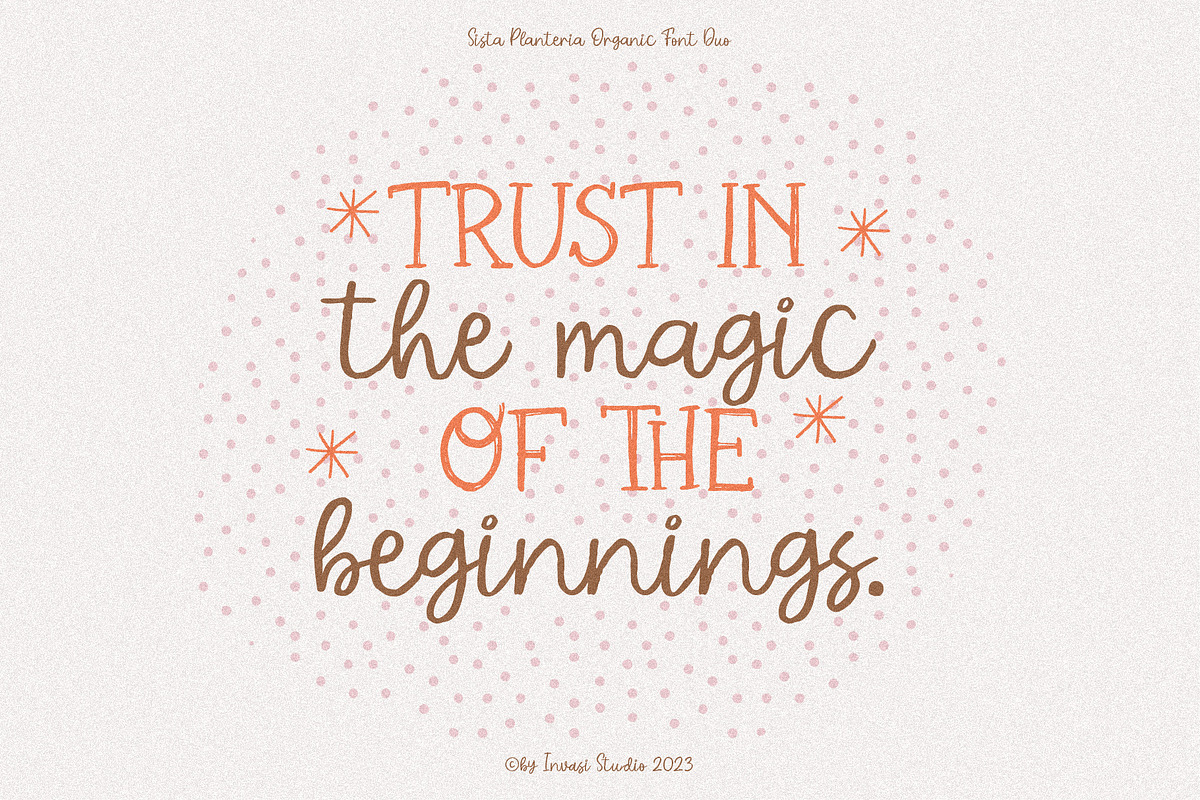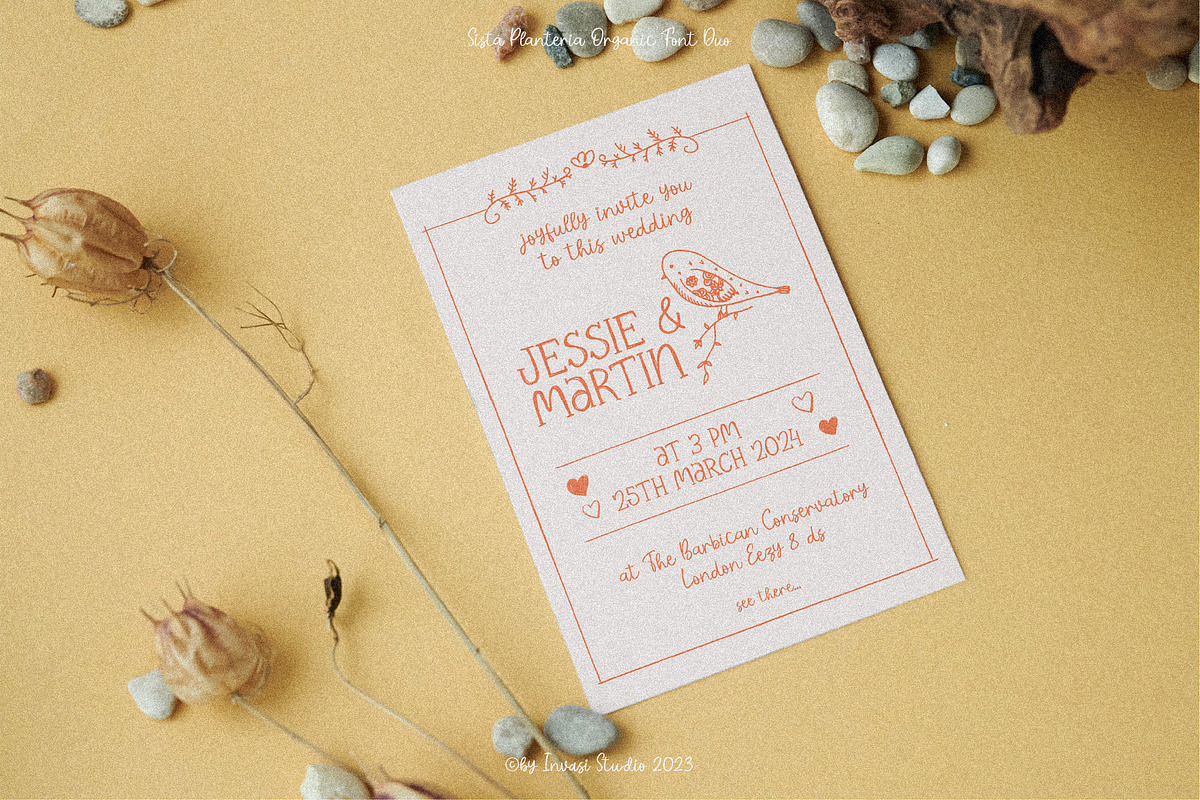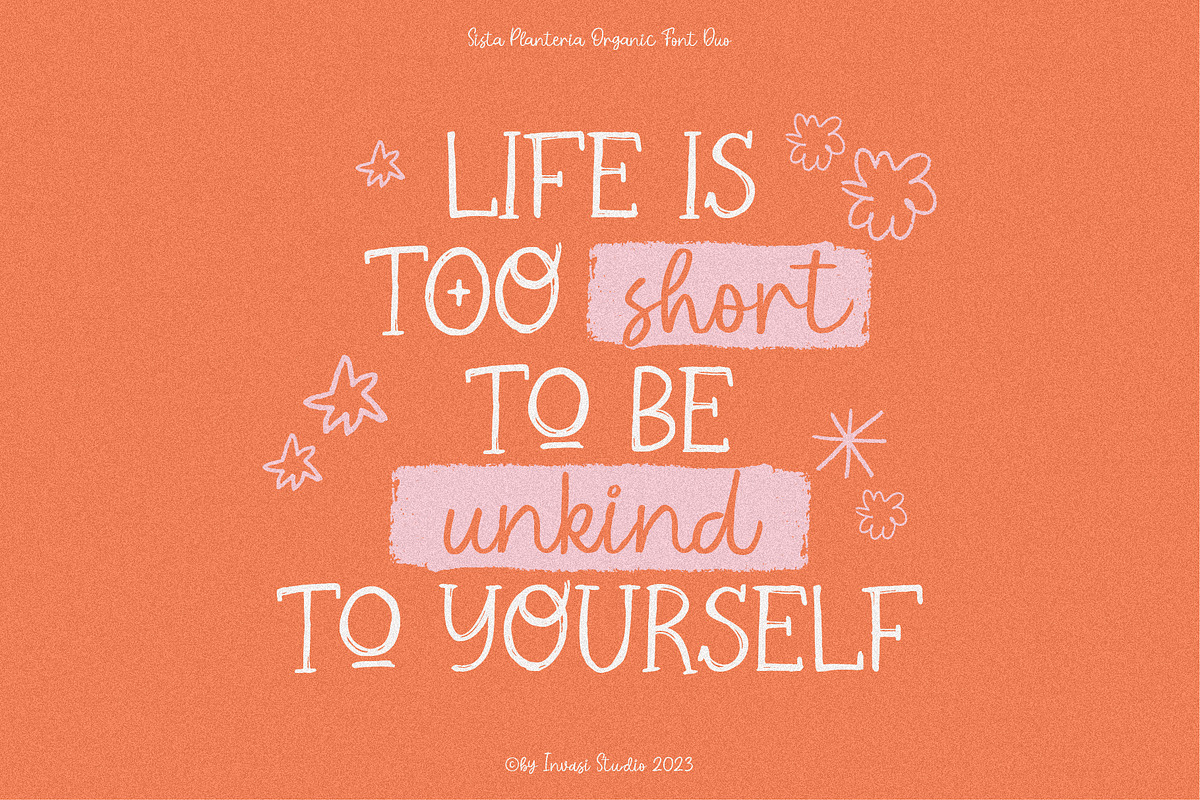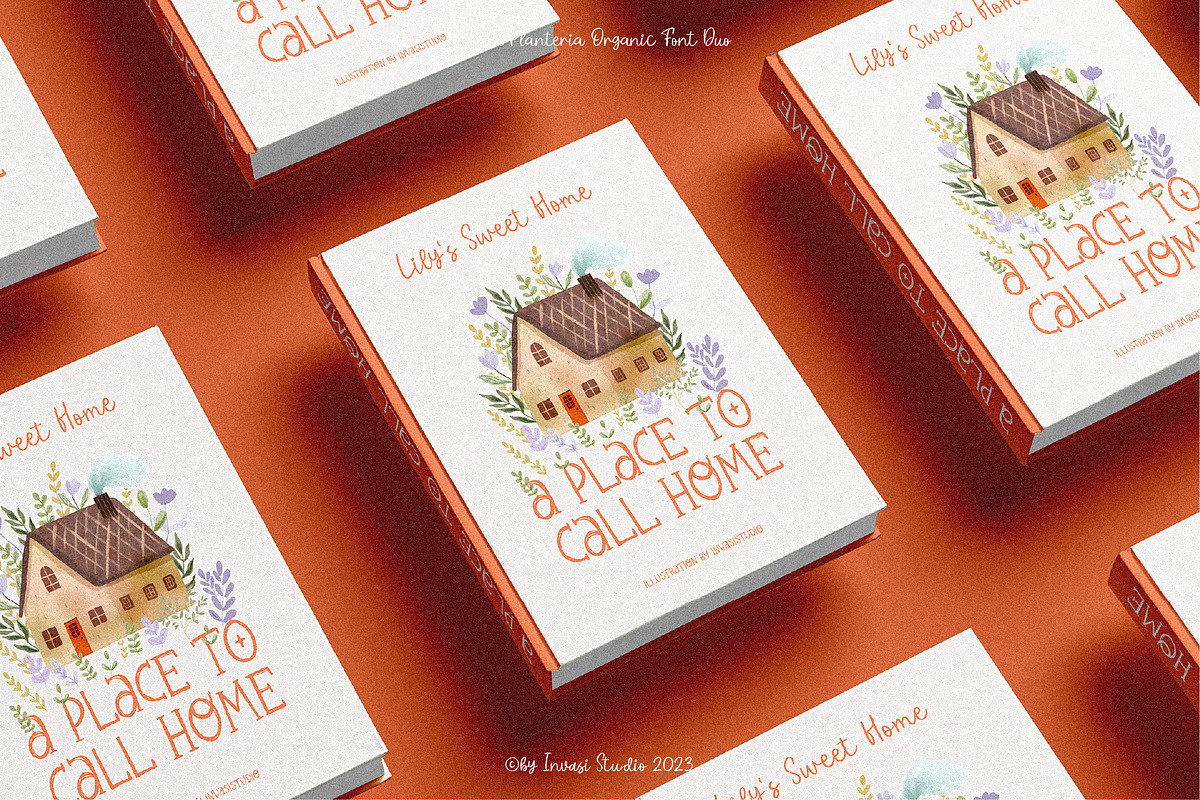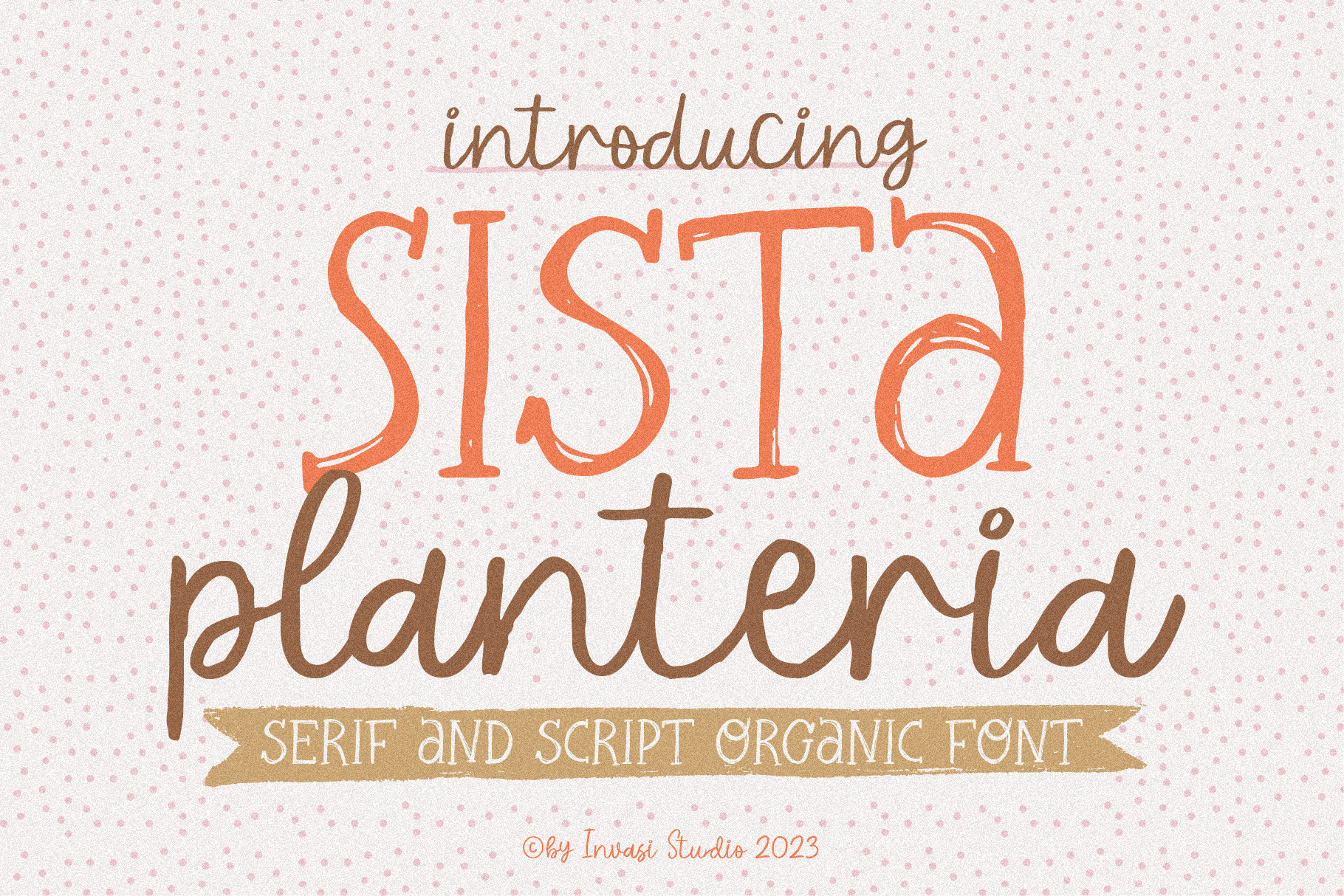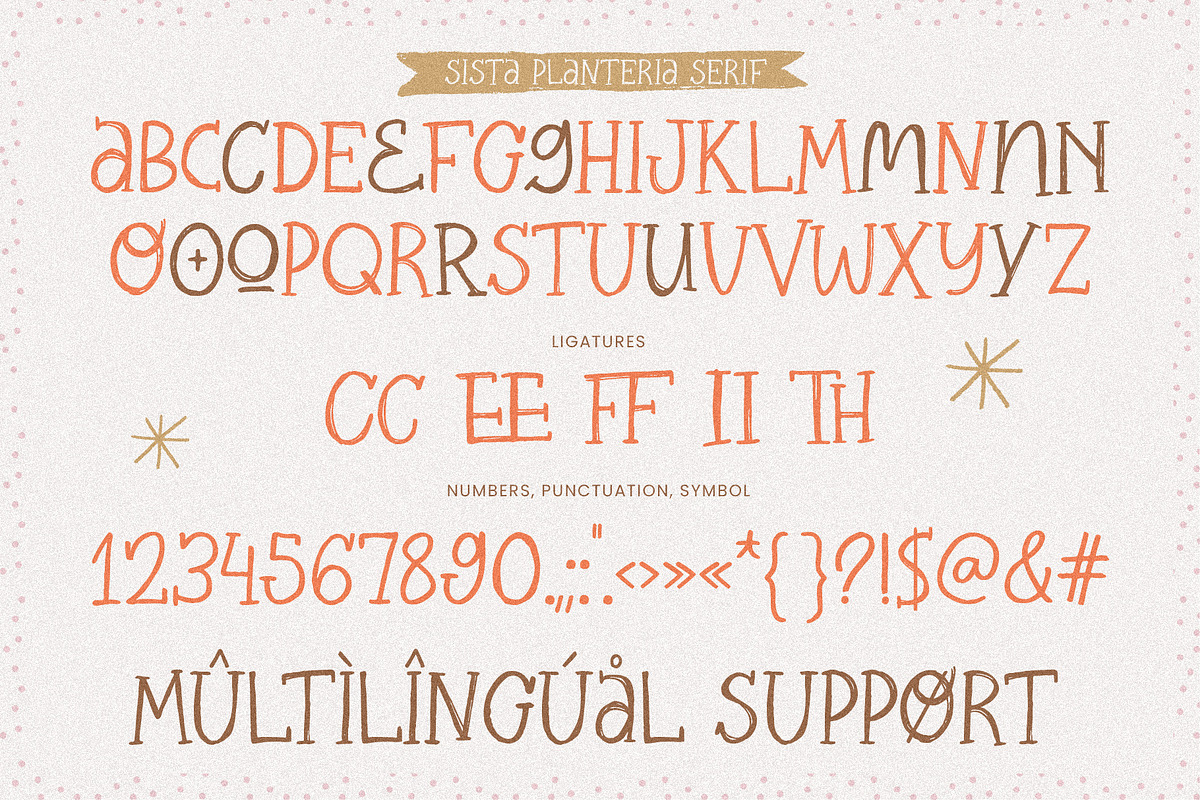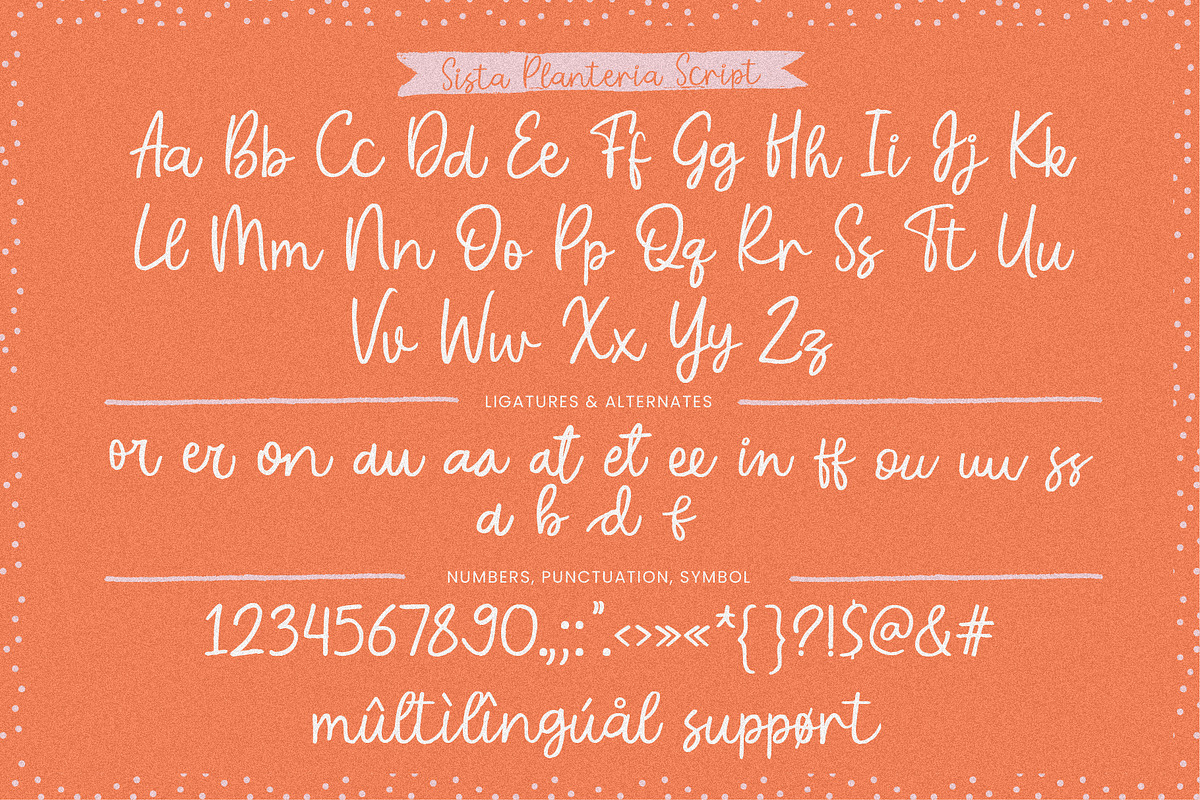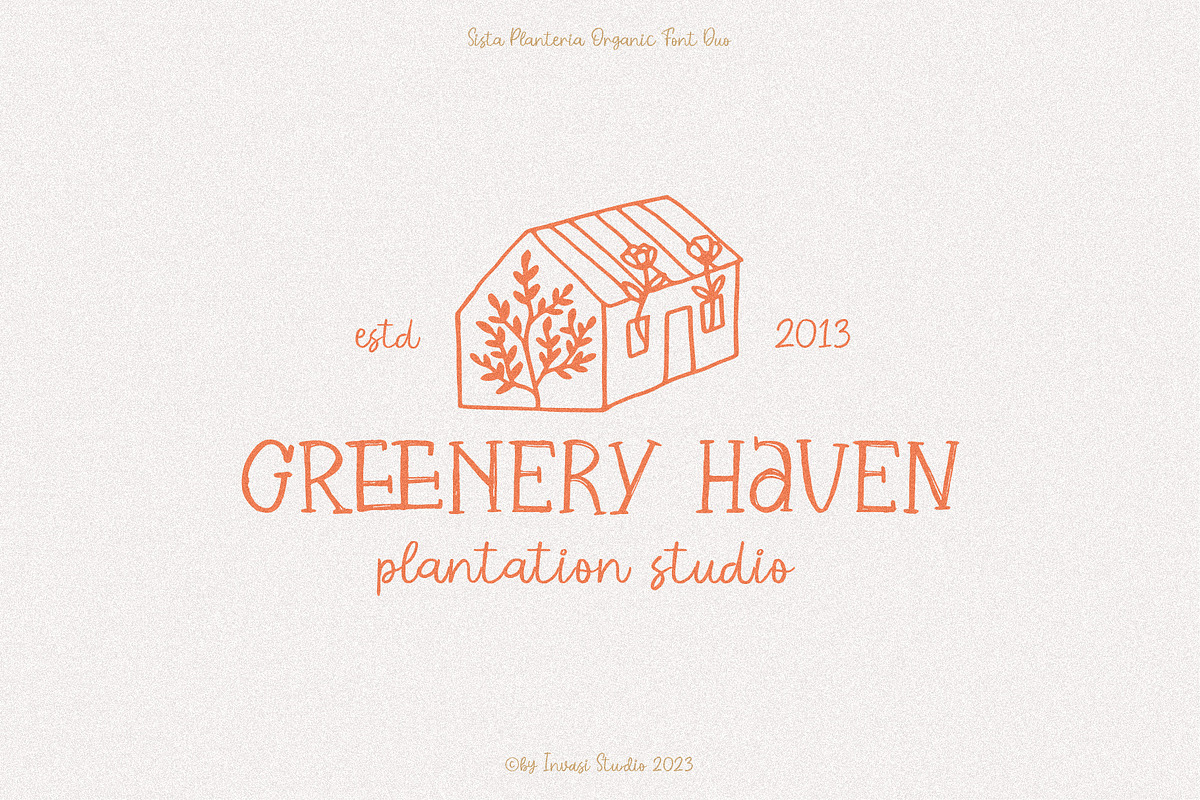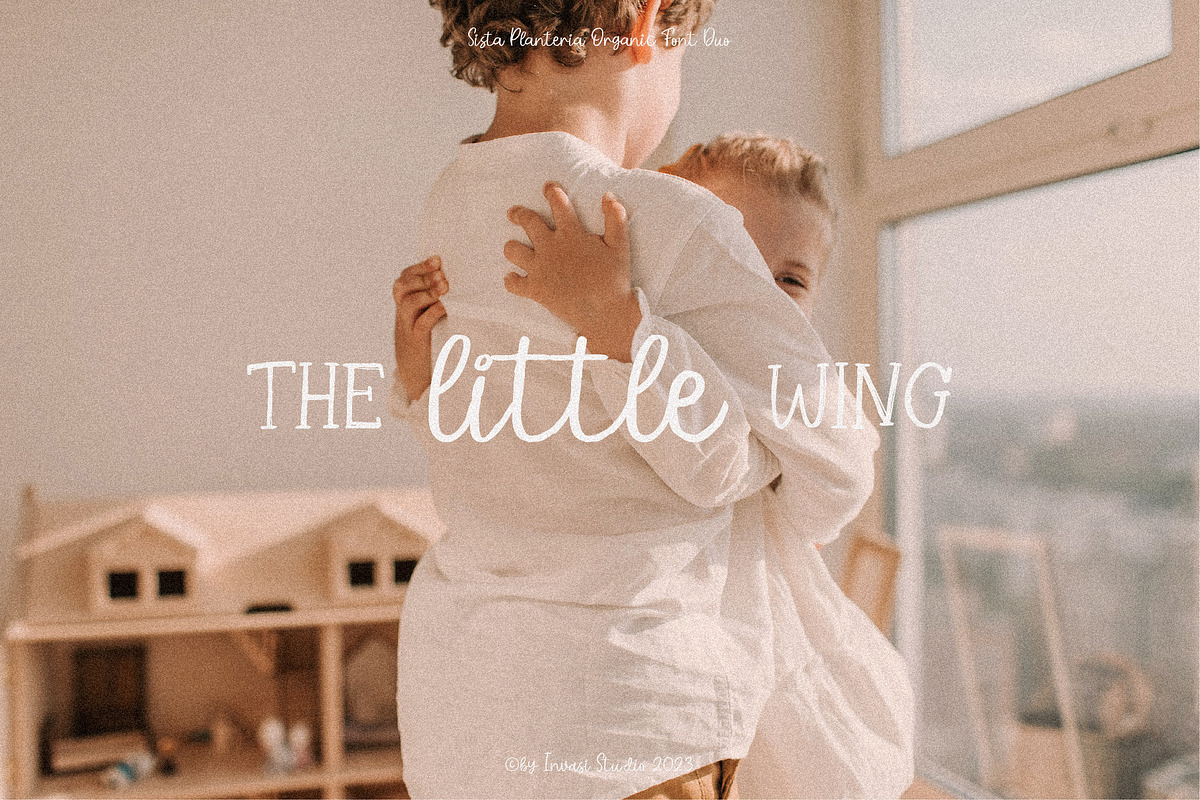
Sista Planteria - Organic Font Duo
Meet the delightful duo that brings an organic twist to your designs! Introducing Sista Planteria, the charming pairing of an all-caps serif and a playful script font. Whether diving into illustrative creations, crafting whimsical greetings, adding charm to book covers, designing delightful quotes, or creating enchanting packaging, Sista Planteria is your go-to choice for an organic touch.
With its alternates and ligatures, this font duo offers a signature handwriting style that adds a hint of natural elegance to your projects. And don't worry about language barriers – Sista Planteria supports multilingual Latin characters, ensuring your creativity knows no bounds. Get ready to infuse your designs with a dash of organic taste that will captivate hearts and bring smiles. Elevate your creations with the Sista Planteria font duo and let your imagination bloom!
- Alternates and Ligatures
- Multilanguage Supports 60+ Latin-based languages